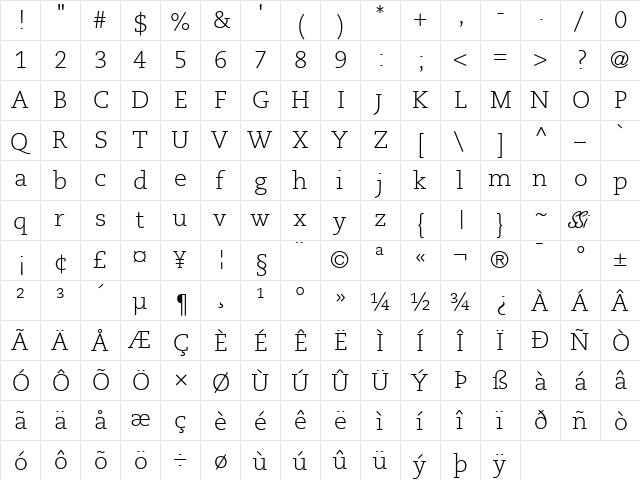
Monologue Light SSi Light
Design Context for Monologue Light SSi Typeface
Monologue Light SSi brings the precise, column-aligned rhythm of monospaced typography to designs that value technical clarity and systematic order. Its slender proportions lend an understated elegance to any composition.
Pro Tip: Pair Monologue Light SSi with a proportional sans for UI contexts where code-style labels and regular body copy need to coexist.